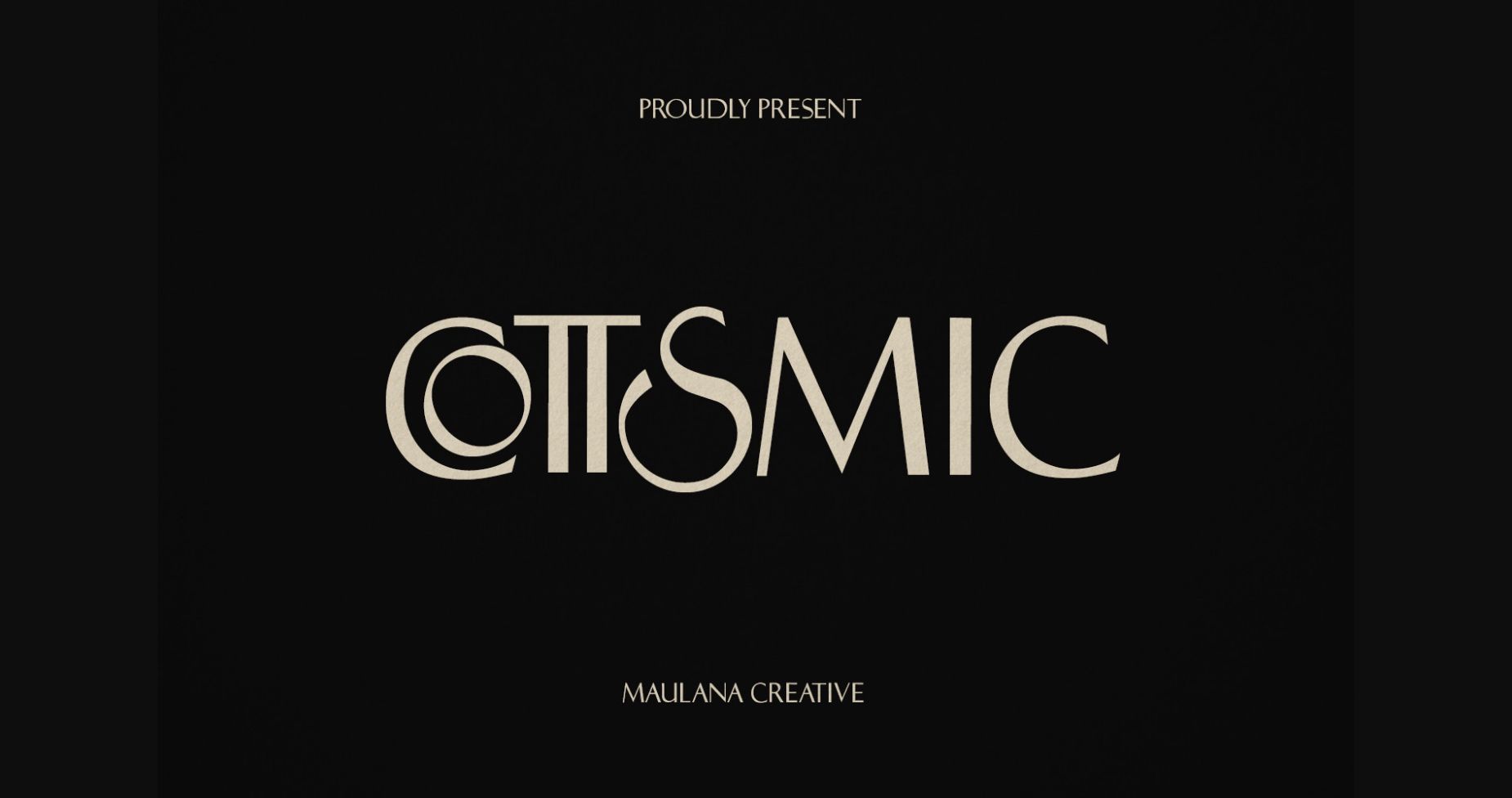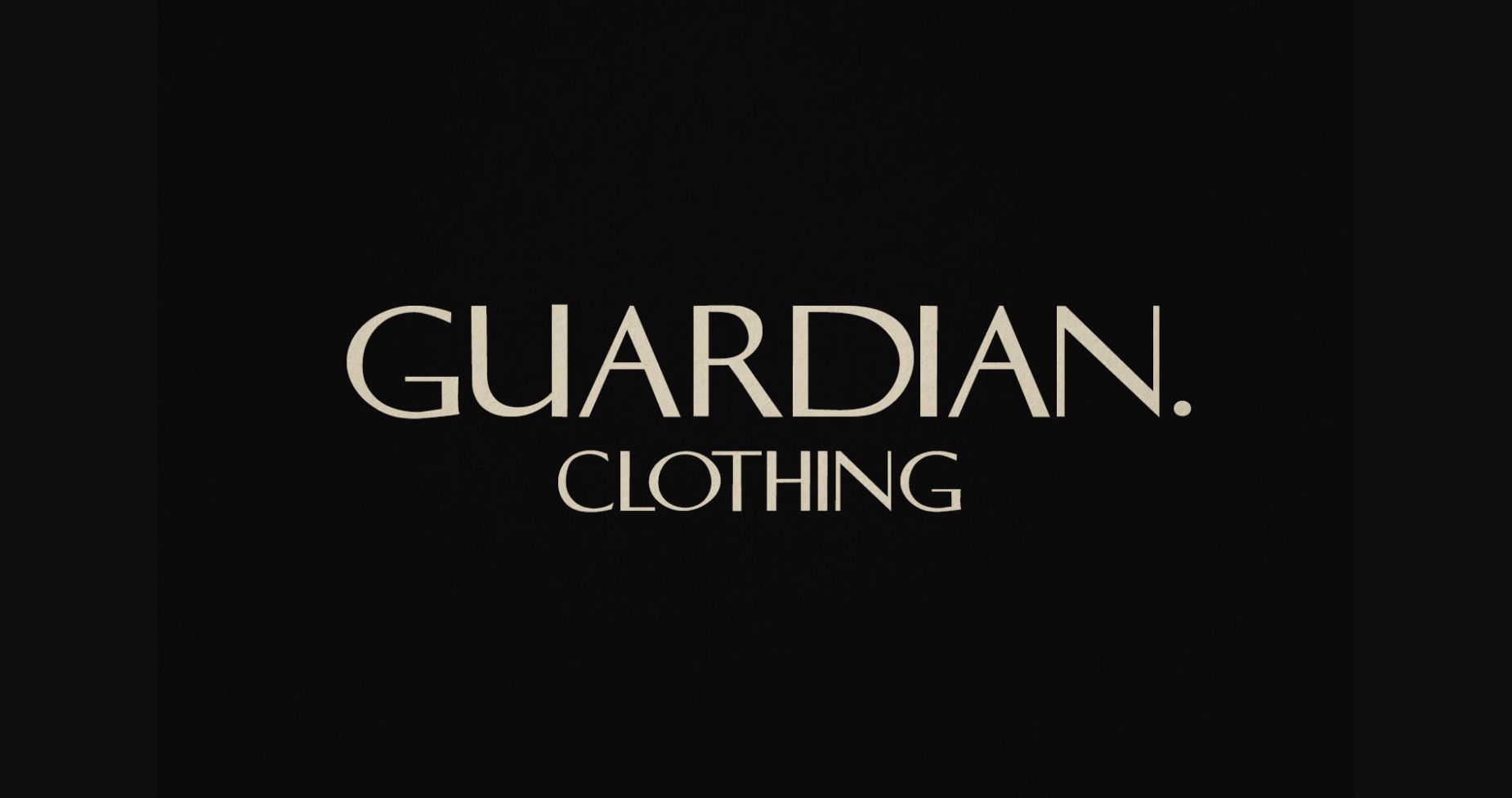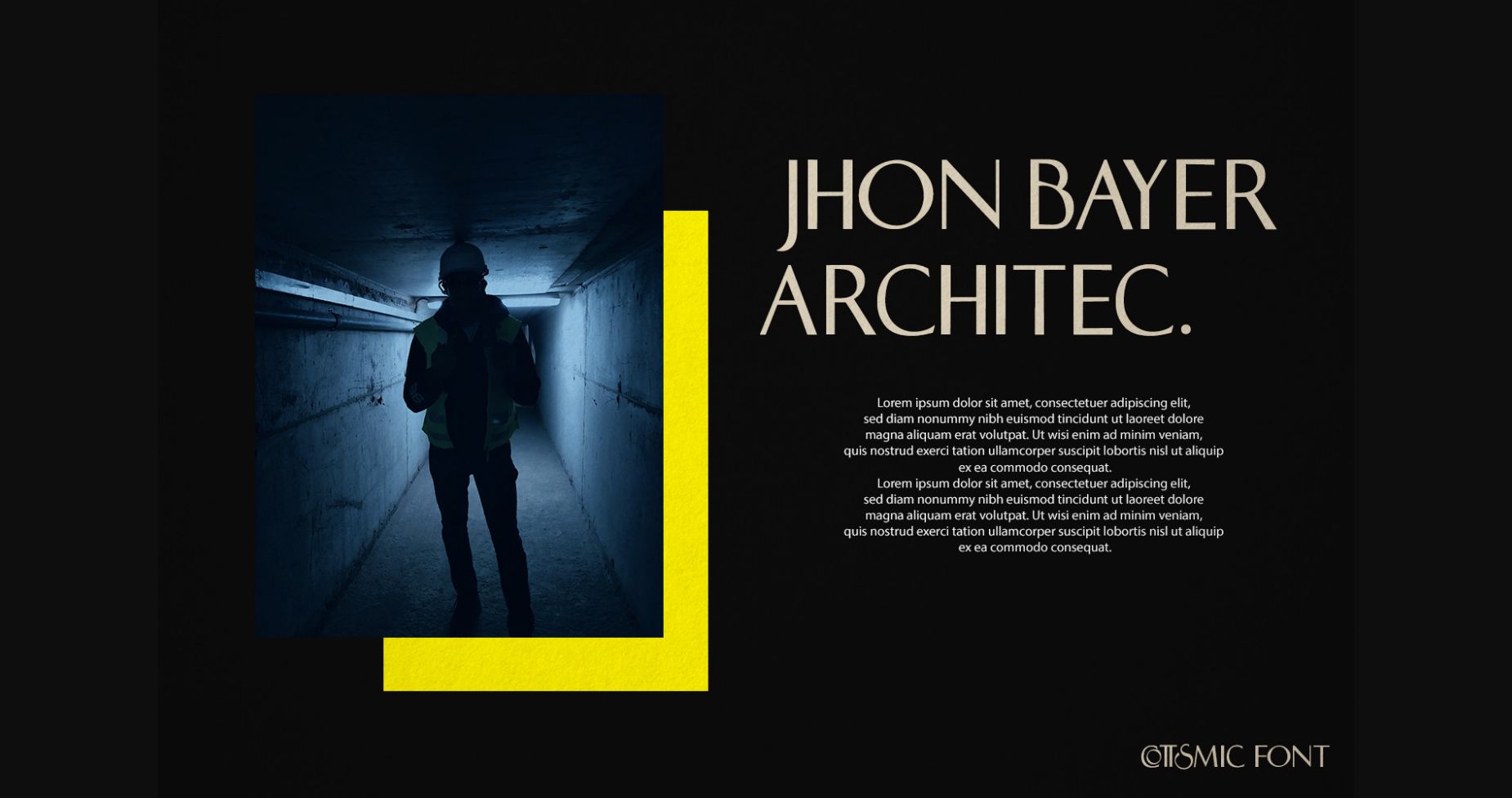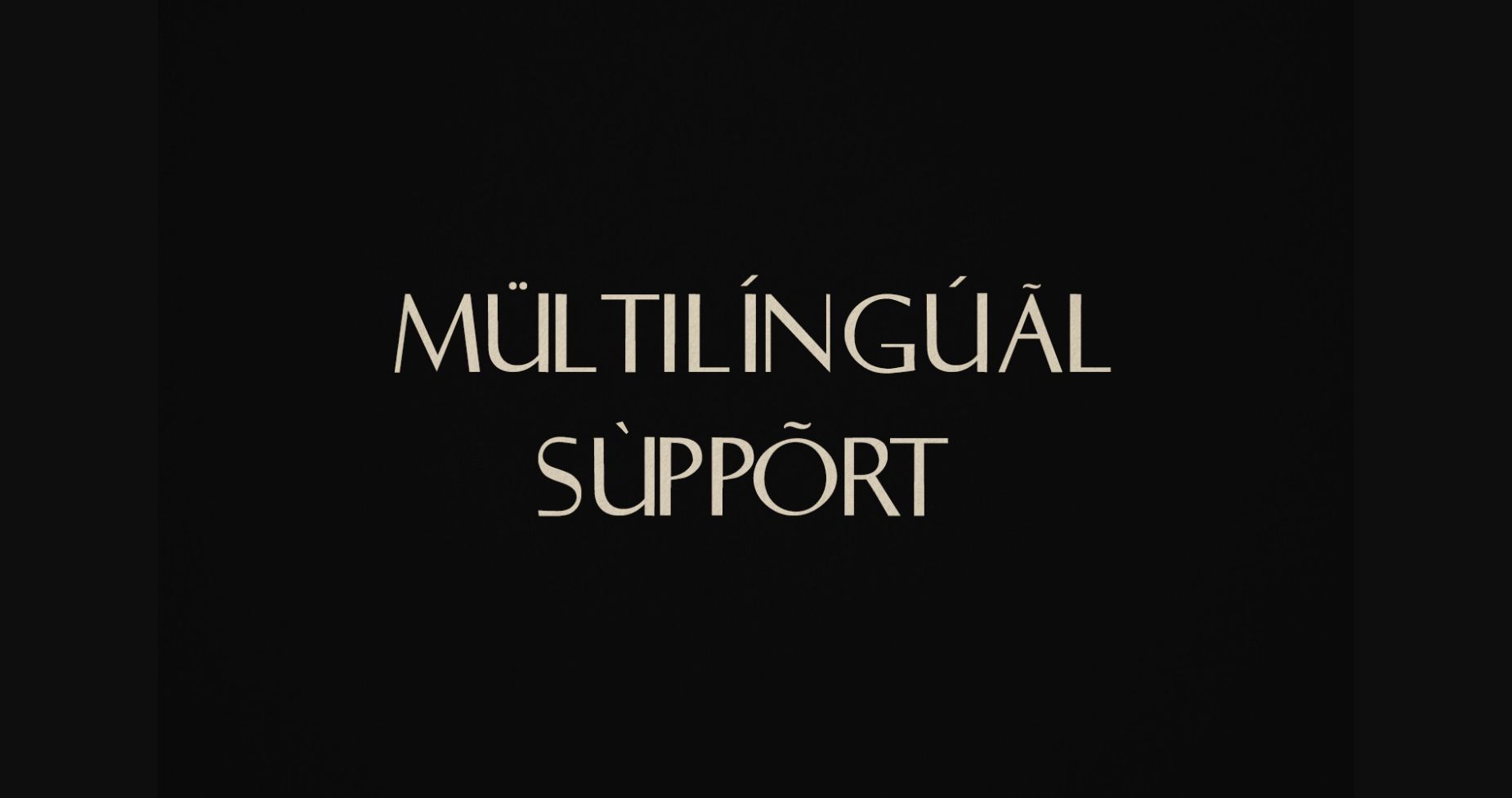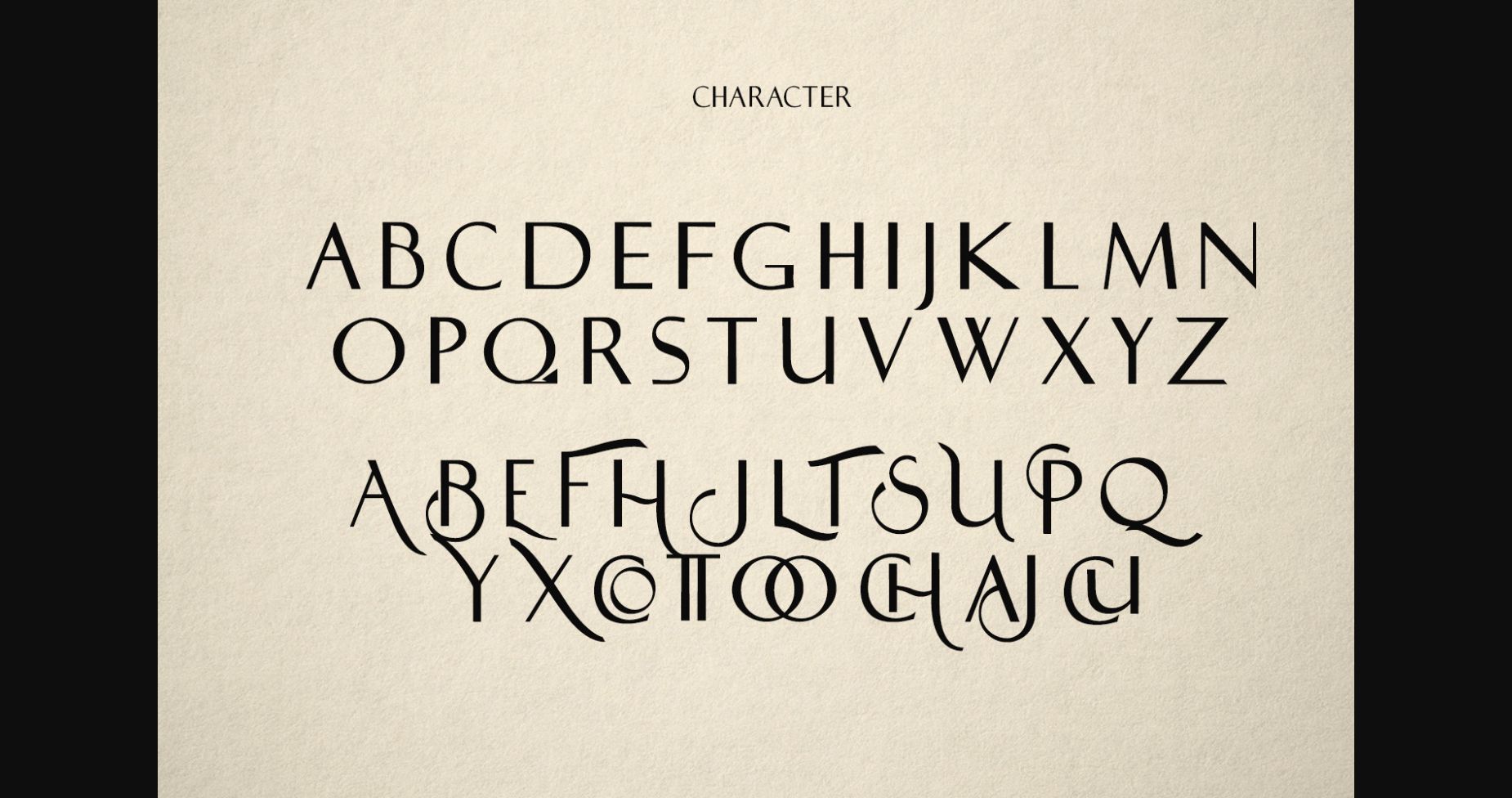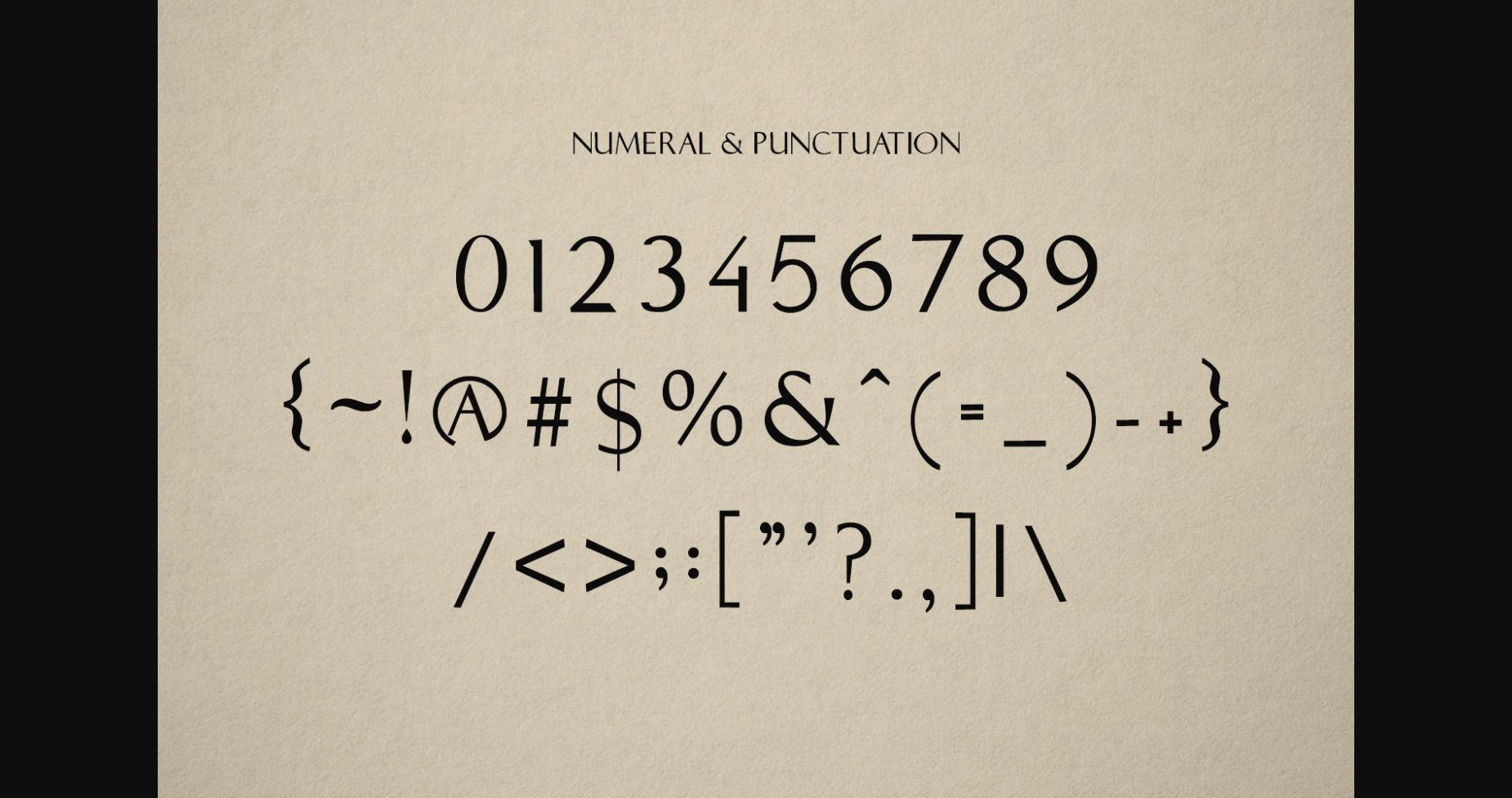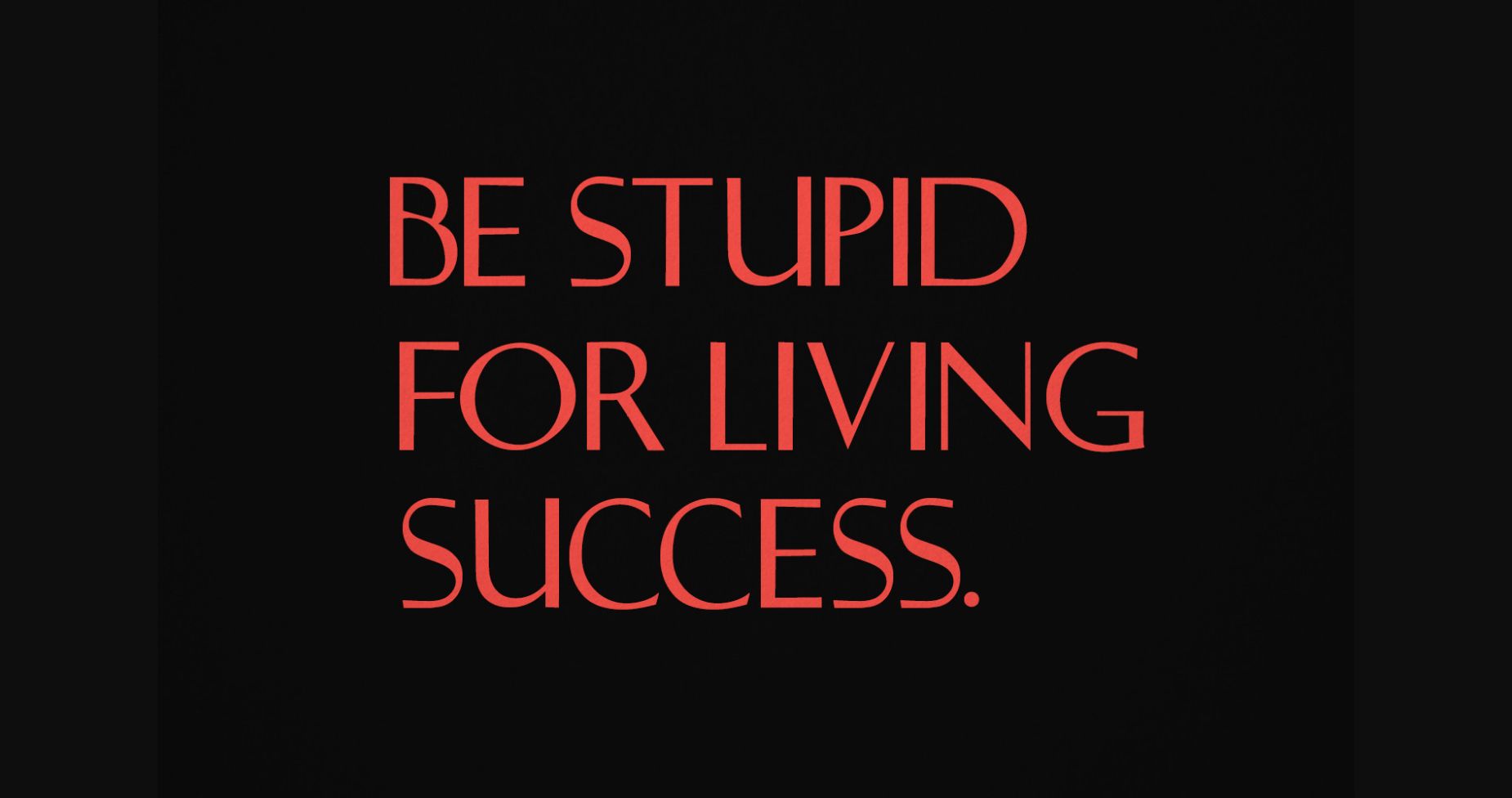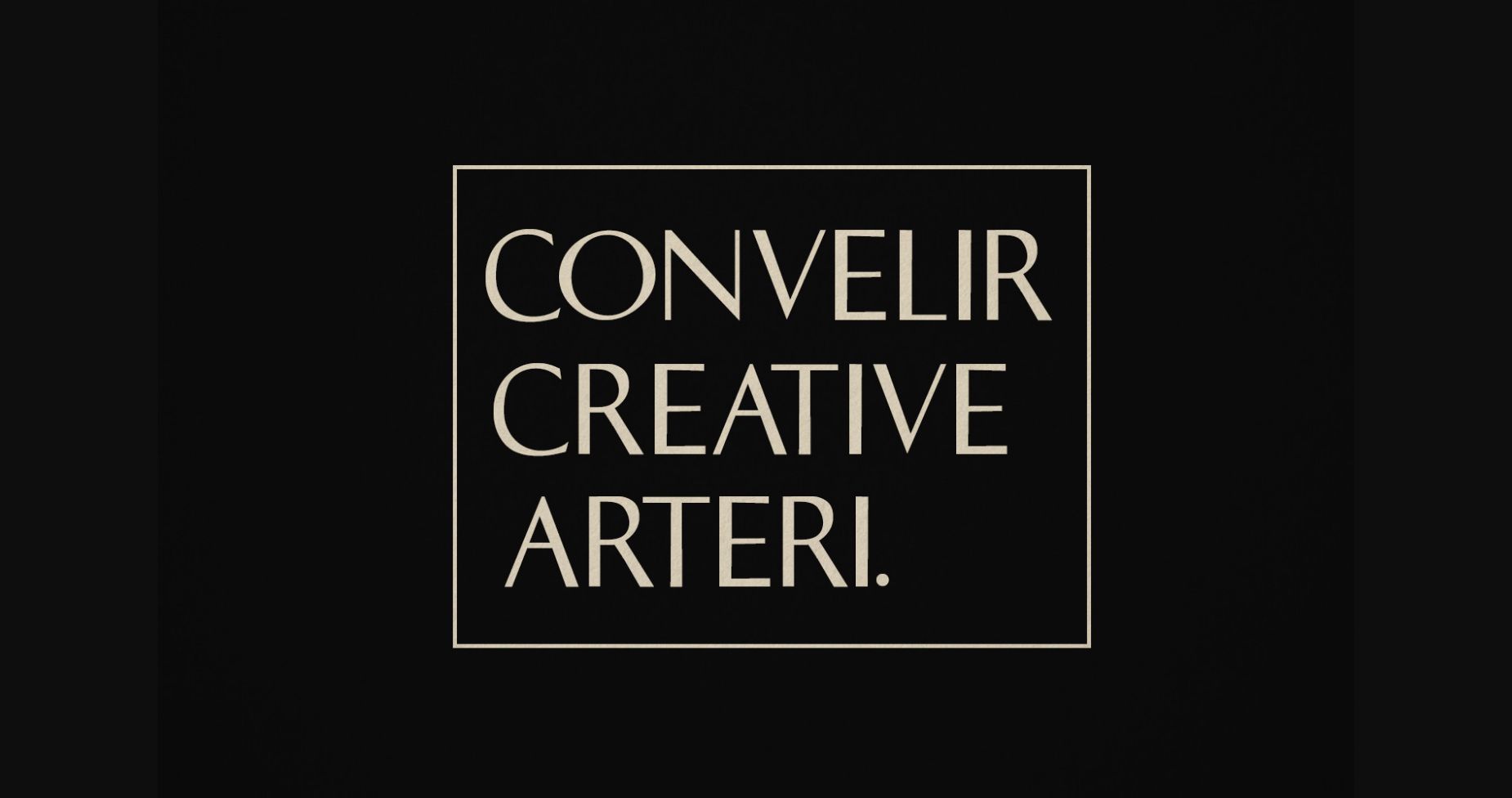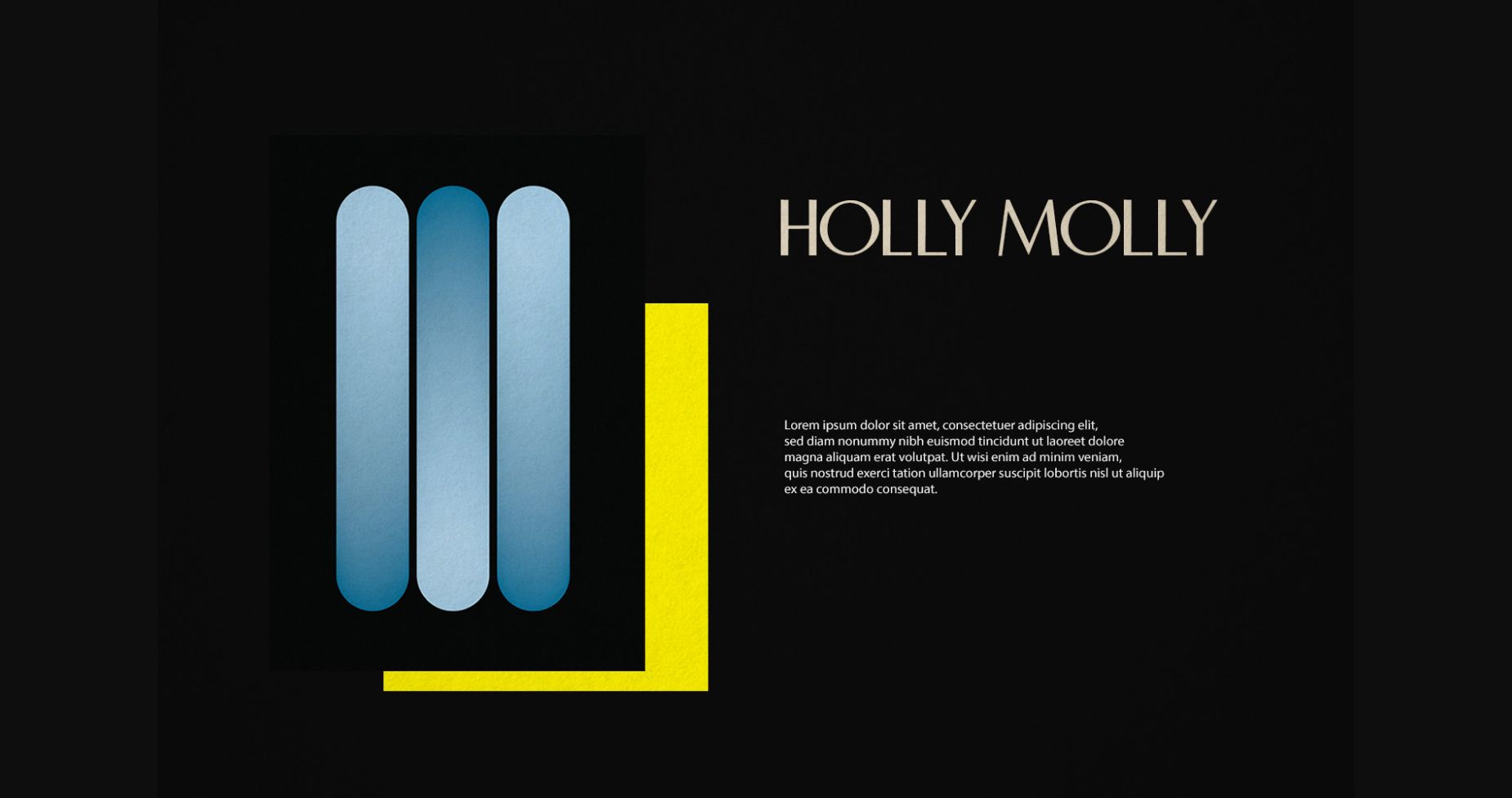
Cottsmic Font
About Cottsmic Font
Cottsmic is a contemporary sans serif font with bold weight, unique and fun characters, and a sleek appearance! This font is good for logo design, Social media, Movie Titles, Books Titles, and others. Make a stunning work with Cottsmic!